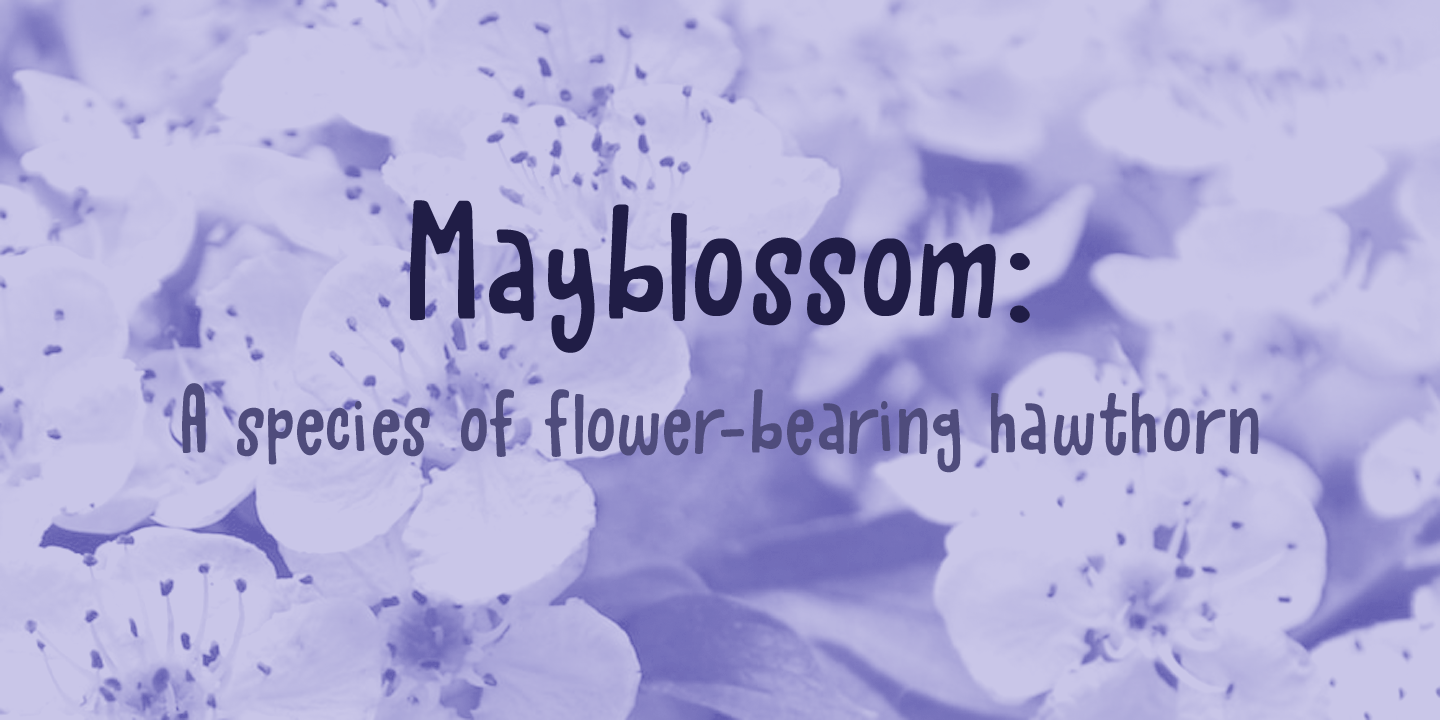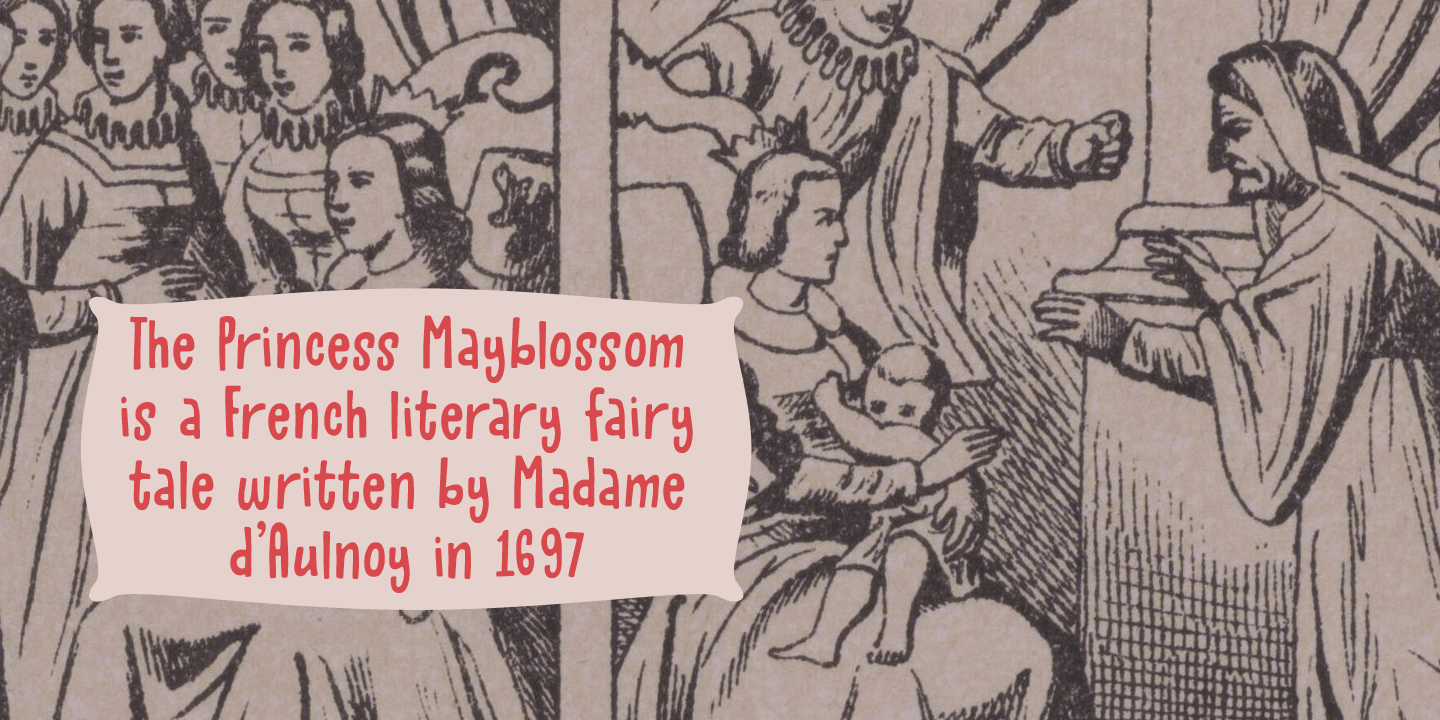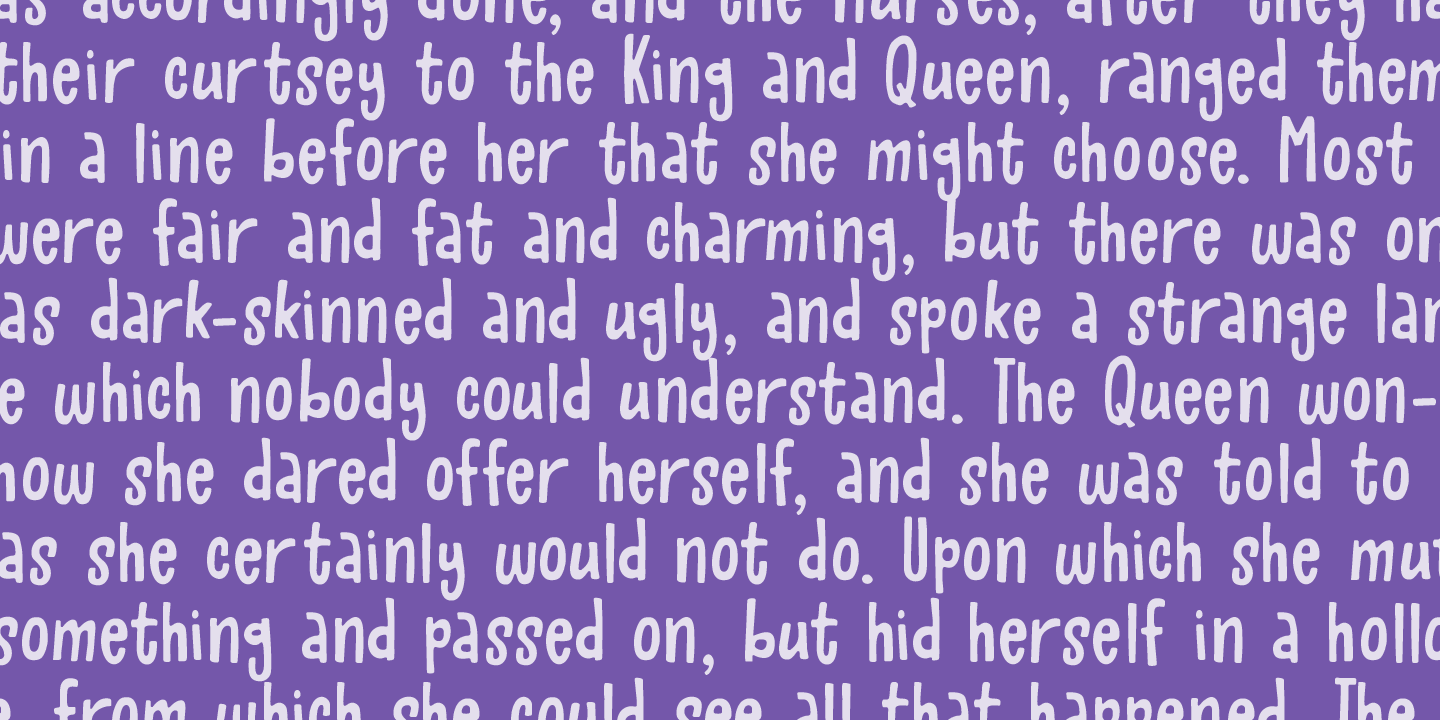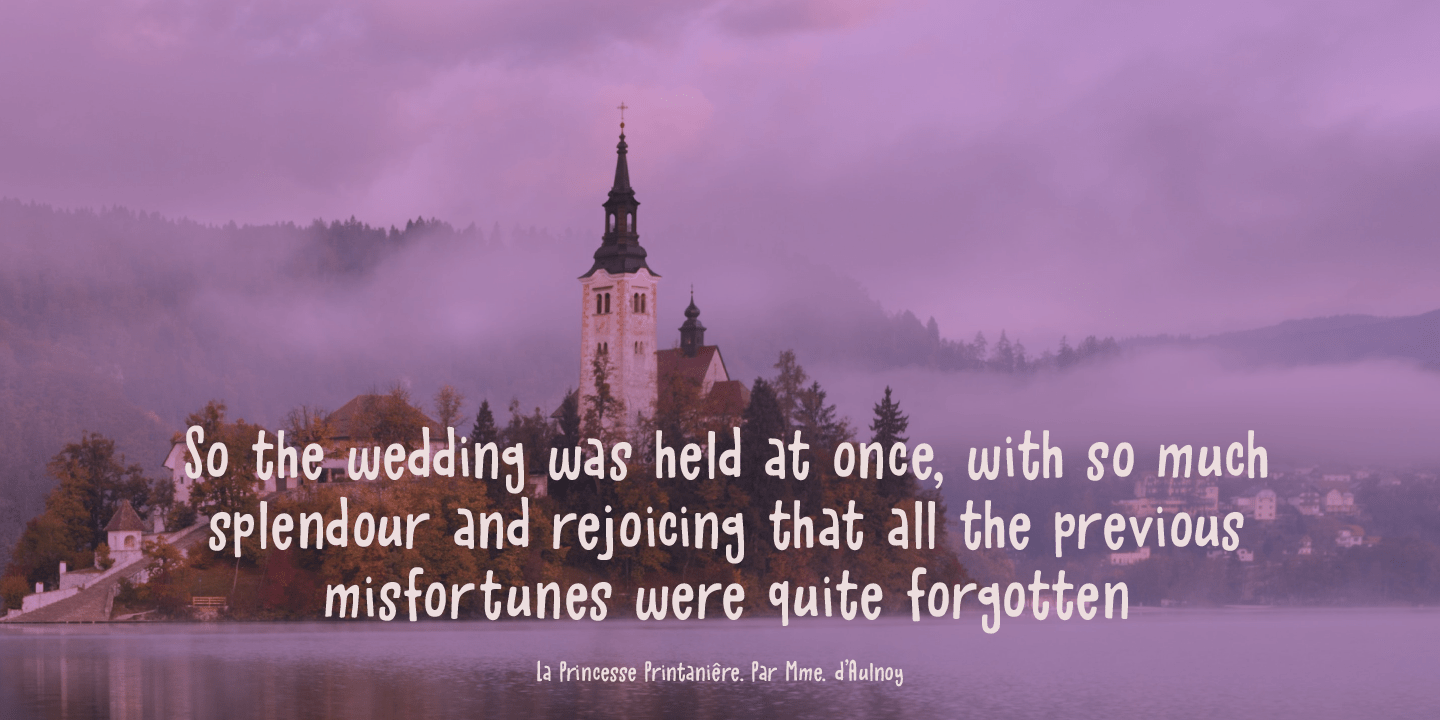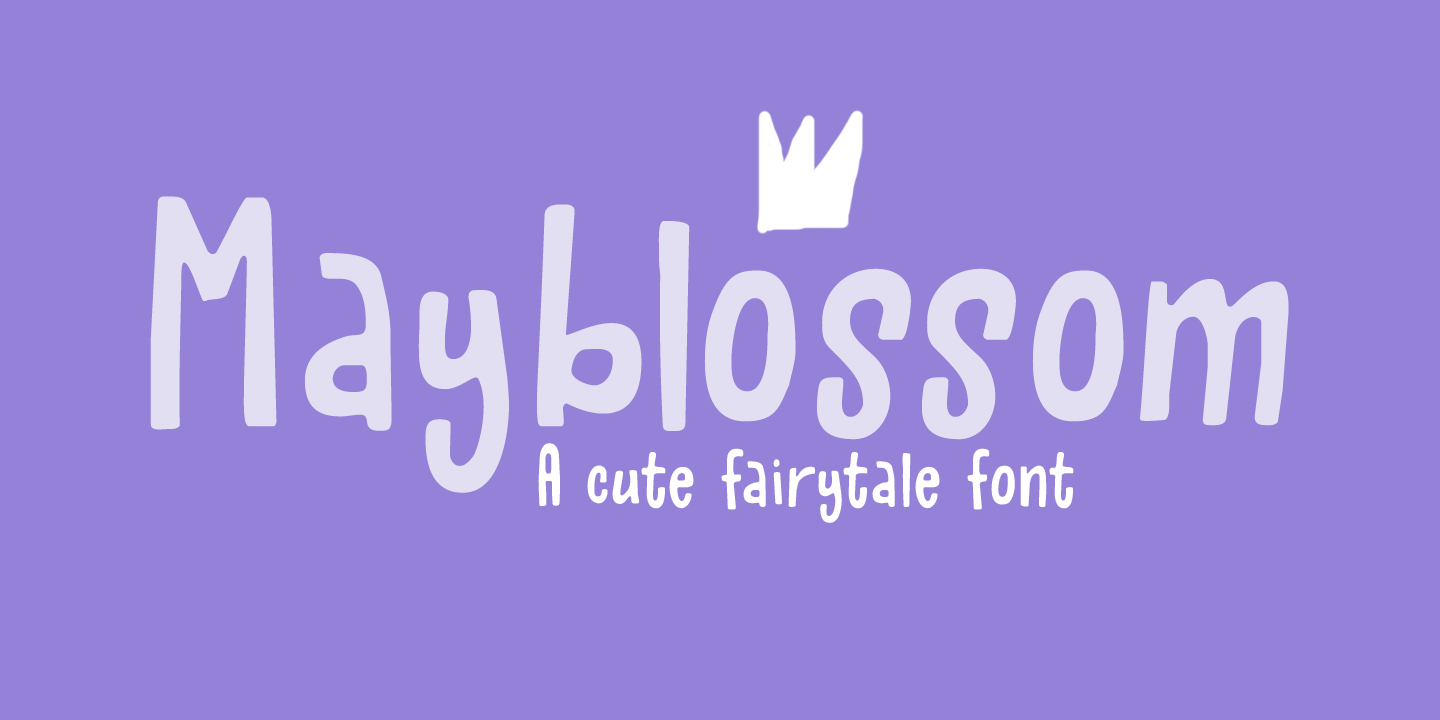
Mayblossom was named after an old French fairytale (The Princess Mayblossom),which is quite similar to the tale of Sleeping Beauty. Mayblossom font is a fairytale font. It was made with a magic wand (with a Unicorn hair core) onto centuries old parchment.…